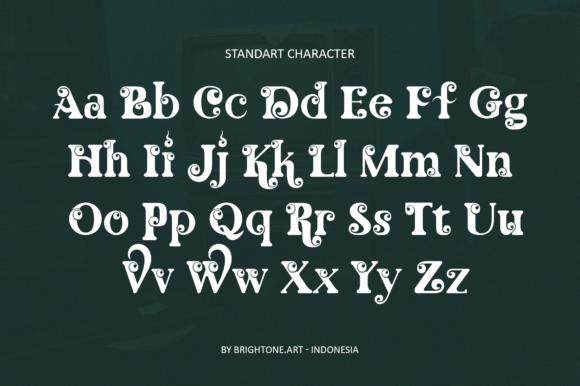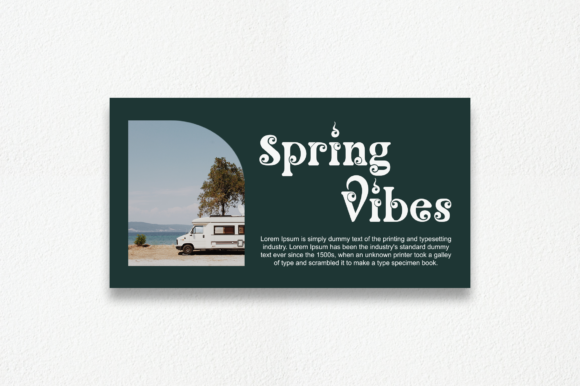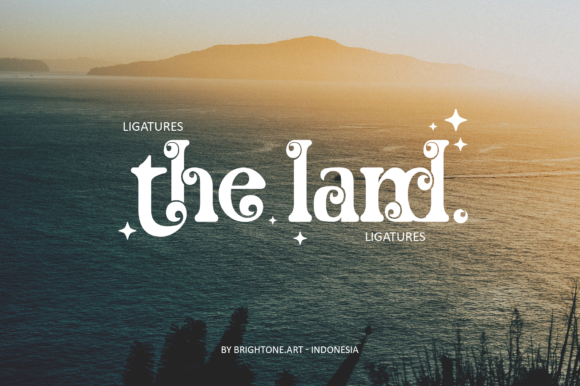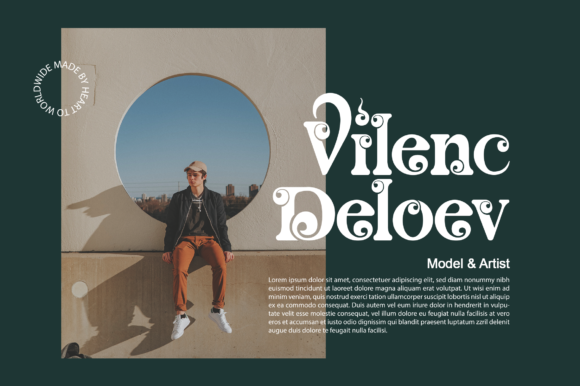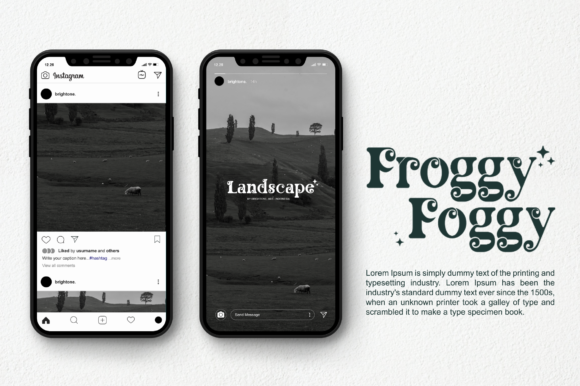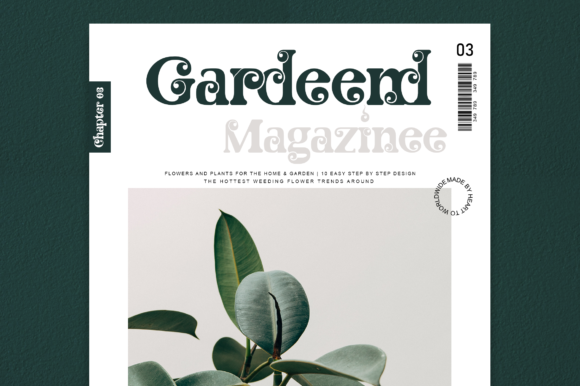
Froggy Foggy Font: Adding a Playful Touch to Your Creative Projects
Are you tired of using the same old fonts for your creative projects? Look no further than the Froggy Foggy Font, a lovely serif font that is sure to add a playful touch to your designs. With its amazing style and unique characters, Froggy Foggy is the perfect choice for designers and crafters who want to make their work stand out.
What Makes Froggy Foggy Font So Special?
Froggy Foggy Font is a one-of-a-kind serif font that boasts an incredible style that is both lively and playful. Its unique characters are designed to add a touch of whimsy to your designs, making it perfect for creative projects that require a bit of personality. Whether you’re working on a logo, a poster, or a digital project, Froggy Foggy Font is sure to make it shine.
PUA Encoding: What Does it Mean?
One of the best things about Froggy Foggy Font is that it is PUA (Private Use Area) encoded. But what does that mean? In simple terms, PUA encoding allows you to access all of the glyphs and swashes with ease. This means that you can easily insert special characters, ligatures, and other unique elements into your designs without having to worry about complicated coding or technical issues.
Benefits of Using Froggy Foggy Font
So why should you choose Froggy Foggy Font for your creative projects? Here are just a few benefits of using this amazing font:
- Unique and Playful Style: Froggy Foggy Font has a one-of-a-kind style that is sure to add a playful touch to your designs.
- Easy to Use: With PUA encoding, you can easily access all of the glyphs and swashes, making it simple to use and incorporate into your designs.
- Versatile: Froggy Foggy Font is perfect for a wide range of creative projects, from logos and posters to digital projects and more.
- High-Quality: This font is designed with high-quality and clarity in mind, ensuring that it looks great in any size or resolution.
Who Can Benefit from Using Froggy Foggy Font?
Froggy Foggy Font is perfect for a wide range of designers and crafters, including:
- Graphic Designers: If you’re a graphic designer looking for a unique and playful font to add to your collection, Froggy Foggy Font is a great choice.
- Crafters: If you’re a crafter who loves to create handmade cards, scrapbook pages, and other projects, Froggy Foggy Font is a great addition to your design toolkit.
- Digital Artists: If you’re a digital artist looking for a font that can add a touch of personality to your digital projects, Froggy Foggy Font is a great option.
How to Use Froggy Foggy Font in Your Designs
Using Froggy Foggy Font in your designs is easy! Here are a few tips to get you started:
- Experiment with Different Sizes: Froggy Foggy Font looks great in a variety of sizes, so don’t be afraid to experiment and find the perfect size for your project.
- Play with Colors: This font looks great in a wide range of colors, so try experimenting with different color schemes to find the one that works best for your project.
- Mix and Match with Other Fonts: Froggy Foggy Font pairs well with a variety of other fonts, so try mixing and matching it with other fonts to create a unique and interesting look.